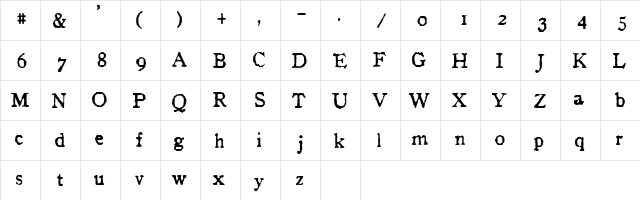
In_alphabet Regular Font Preview
In_alphabet Regular
Design Context for In_alphabet Typeface
In_alphabet is a composed and adaptable typeface that performs quietly and consistently across a wide range of design contexts.